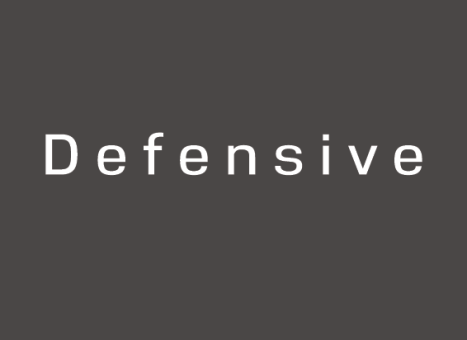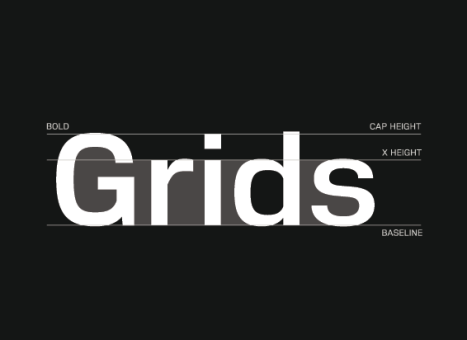
Nuber
A linear geometric sans serif influenced by neo-grotesques and the early Swiss type foundries. Smooth, even letter shapes are carefully drafted from a grid to produce a uniformed, low contrast typeface with a high degree of readability. Details include 540 characters with alternative uppercase R, alternative lowercase a, e and g, 5 variations of numerals, manually edited kerning and opentype features.